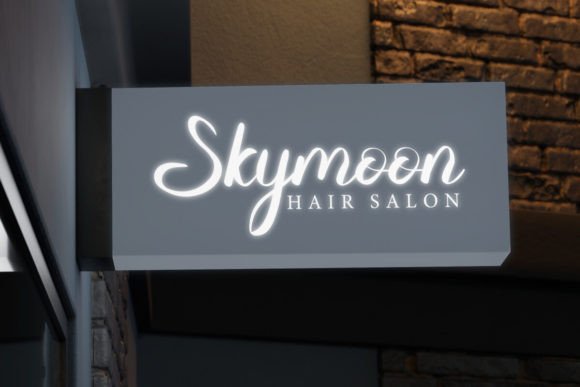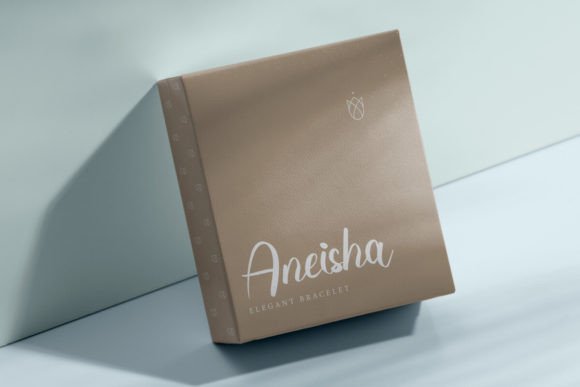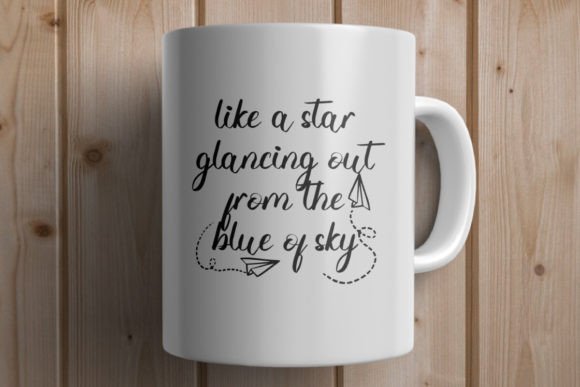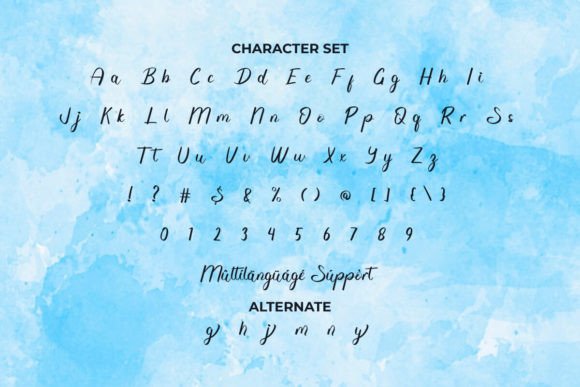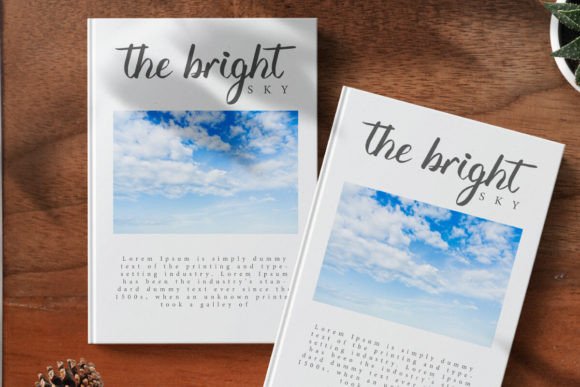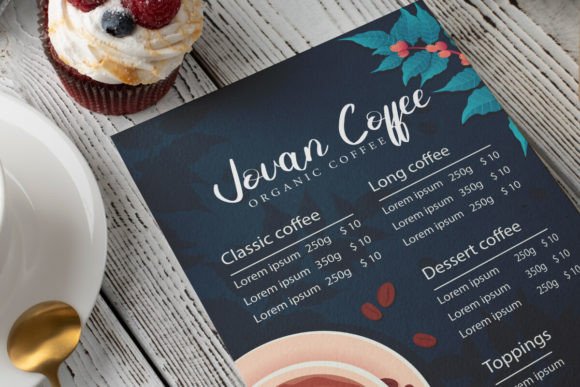
Introducing Bright Sky Font: Elevate Your Designs with a Touch of Serenity
Are you tired of using the same old fonts in your designs? Do you want to add a touch of elegance and sophistication to your projects? Look no further than Bright Sky Font, a beautiful casual handwriting script font inspired by the beauty of a clear sky. In this article, we’ll explore the features and benefits of Bright Sky Font, and how it can elevate your designs to new heights.
The Inspiration Behind Bright Sky Font
Bright Sky Font is a carefully crafted typography that draws inspiration from the serenity and beauty of a clear sky. The font’s creator aimed to capture the essence of a cloudless sky, with its smooth and flowing lines, to create a unique and captivating handwriting script font. The result is a font that exudes a sense of calmness and tranquility, perfect for designs that require a touch of elegance and sophistication.
Key Features of Bright Sky Font
So, what makes Bright Sky Font stand out from the rest? Here are some of its key features:
• Legibility: Bright Sky Font is designed with legibility in mind, making it easy to read and understand, even at small font sizes.
• Cursive Script: The font features a beautiful cursive script that flows smoothly, creating a sense of continuity and harmony.
• Versatility: Bright Sky Font is suitable for a wide range of industries, including author, coffee shop, craft, event organizer, furniture, hair salon, homeware, lodging, jewelry, printing, publishing, real estate, restaurant, skincare, spa, wedding, and many more.
Benefits of Using Bright Sky Font
So, why should you choose Bright Sky Font for your designs? Here are some benefits you can expect:
• Elegance and Sophistication: Bright Sky Font adds a touch of elegance and sophistication to your designs, making them stand out from the crowd.
• Emotional Connection: The font’s calming and serene feel can help create an emotional connection with your audience, making your designs more relatable and engaging.
• Versatility: Bright Sky Font can be used in a wide range of design projects, from branding and advertising to packaging and digital media.
Design Ideas with Bright Sky Font
Now that we’ve explored the features and benefits of Bright Sky Font, let’s take a look at some design ideas to get you started:
• Branding and Logo Design: Use Bright Sky Font to create a beautiful and elegant logo for your brand, perfect for businesses in the wellness, beauty, and hospitality industries.
• Wedding and Event Design: Add a touch of romance and sophistication to your wedding and event designs, including invitations, programs, and signage.
• Packaging Design: Use Bright Sky Font to create eye-catching packaging designs for your products, perfect for food, beverage, and lifestyle brands.
In conclusion, Bright Sky Font is a beautiful and versatile casual handwriting script font that can elevate your designs to new heights. With its carefully crafted typography, smooth lines, and serene feel, it’s perfect for a wide range of industries and design projects. Whether you’re a designer, crafter, or business owner, Bright Sky Font is a great choice for adding a touch of elegance and sophistication to your designs.